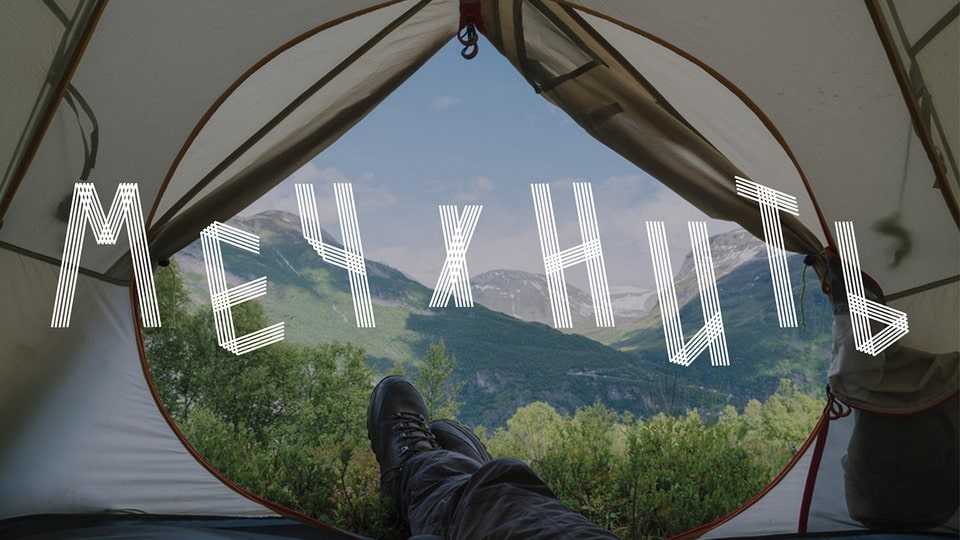
Download NIT font, a display typeface inspired by the geometry of intersecting threads and ropes, which connects it with the world of mountain tourism, mountaineering.
Designer: Alina Absaliamova